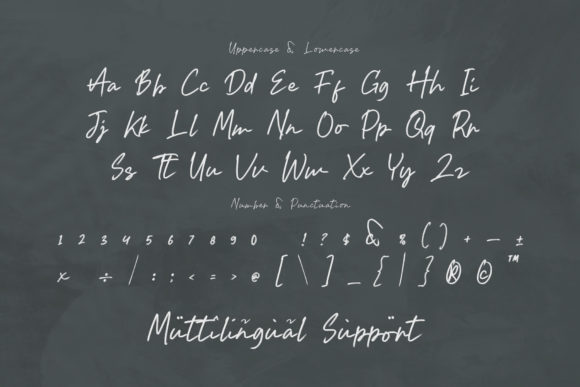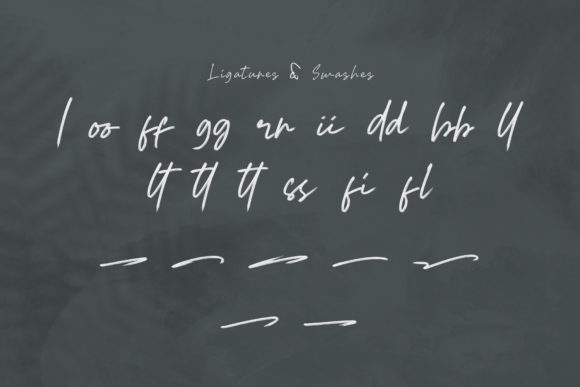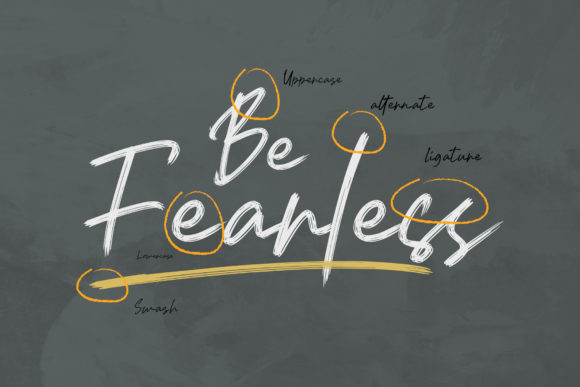
Introduction to Malela Font
Malela is a stylish and cool handwritten font.
It is PUA encoded which means you can access all glyphs and swashes with ease Add it confidently to your projects, and you will love the results.
Malela Font offers exceptional quality and versatility, making it a valuable addition to your design toolkit. Whether you’re creating for personal projects or commercial use, Malela Font delivers professional results.